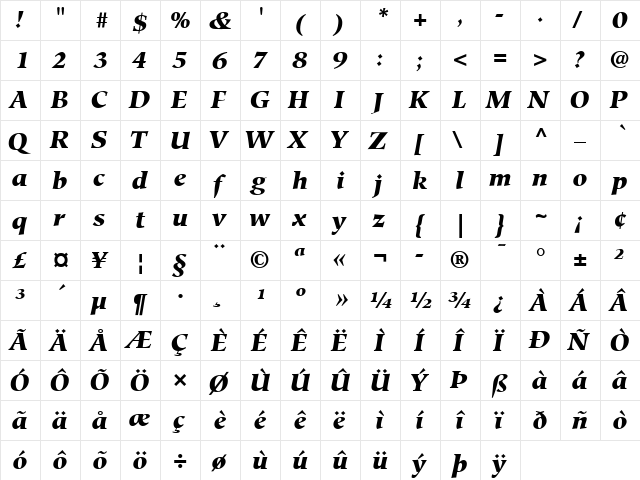
Hiroshige LT Medium Bold Italic Font Preview
Design Context for Hiroshige LT Medium Typeface
Hiroshige LT Medium offers clean, dependable letterforms without strong stylistic allegiance, making it a practical choice for designers who need flexibility. The slanted form adds forward momentum and visual energy. The heavy weight commands attention and anchors typographic hierarchies.
Pro Tip: Try Hiroshige LT Medium for annotation and caption copy alongside an upright companion — the contrast in angle creates a dynamic but ordered typographic system.